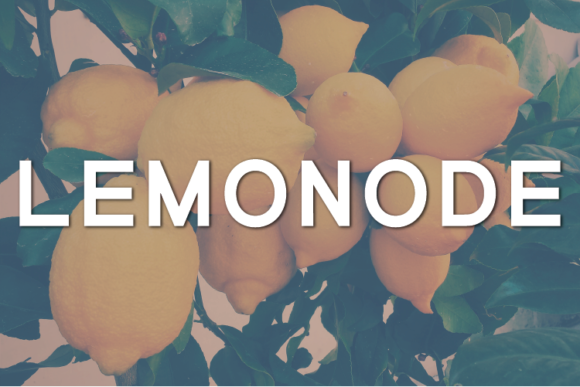
Introducing Lemonode Font, a creation by A Christie, a modern and classy sans serif typeface that exudes elegance and sophistication. Its clean lines and sharp curves bestow a timeless appeal, making it the perfect choice for a wide range of personal and professional projects.
With its versatile nature, Lemonode Font seamlessly adapts to a myriad of applications. Whether you're crafting a captivating logo for your business, designing exquisite wedding invitations to commemorate your special day, or creating thought-provoking quotes to inspire your audience, Lemonode Font rises to the occasion, delivering exceptional results every time.
If you long to make a lasting impression with your creative endeavors, look no further than Lemonode Font. Its timeless aesthetic and versatility make it an indispensable tool for designers, marketers, and content creators alike. Join the ranks of those who appreciate the finer things in life and elevate your projects to new heights with Lemonode Font.
**A Font for Every Occasion:**
- **Logo Design:** Elevate your brand's identity with a logo that exudes professionalism and sophistication. Lemonode Font's clean lines and sharp curves create a striking visual impact, ensuring your logo stands out from the crowd.
- **Wedding Invitations:** Create a lasting memory with wedding invitations that radiate elegance and charm. Lemonode Font's timeless aesthetic adds a touch of sophistication to your special day, setting the tone for a celebration to remember.
- **Quotes and Posters:** Inspire your audience with thought-provoking quotes and captivating posters brought to life by Lemonode Font. Its clean design ensures your message shines through, leaving an indelible mark on your readers' minds.
- **Advertisements:** Capture attention and drive conversions with advertisements that sizzle with style and impact. Lemonode Font's versatility enables you to create eye-catching ads that resonate with your target audience, increasing brand awareness and driving sales.
- **Print and Magazines:** Make a statement with Lemonode Font in print media and magazines. Its crisp lines and elegant curves lend themselves perfectly to headlines, articles, and advertisements, ensuring your content grabs readers' attention and leaves a lasting impression.
Don't settle for ordinary fonts. Embrace the extraordinary with Lemonode Font and unlock a world of creative possibilities. Experience the difference that a truly exceptional font can make and elevate your projects to new heights.